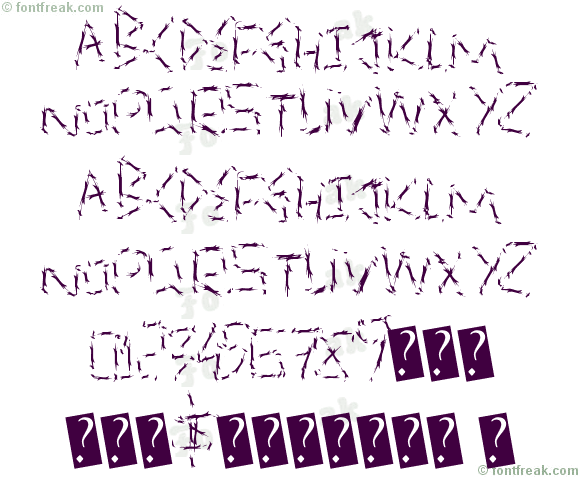
QuickSlash
QuickSlash by Xerographer Fonts is a distinctive display font that captures attention with its unique artistic flair. This font features a bold, fragmented design that resembles quick strokes or slashes, providing a dynamic and energetic vibe. The visual characteristics include an irregular stroke weight, which creates a sense of movement and spontaneity. The spacing between the letters is thoughtfully designed to enhance legibility while maintaining a striking appearance. The decorative elements, including the sharp edges and varying line thickness, contribute to its edgy aesthetic, making it an ideal choice for creative projects.
This versatile font is perfect for a variety of use cases. It shines in applications such as movie posters, where its dramatic flair can capture the essence of an action or thriller film. Additionally, QuickSlash works beautifully for music event flyers, giving them an energetic feel that resonates with the audience. Graphic designers can also utilize this font in branding projects for streetwear or urban fashion lines, where a bold statement is essential. Wedding invitations can benefit from its unique style by adding a modern twist to traditional designs, while restaurant menus can leverage it to create an inviting yet contemporary atmosphere.
What sets the QuickSlash font apart is its ability to balance artistic expression with practicality. Its unique aesthetics lend a fresh perspective to various design applications, ensuring that projects not only stand out but also engage the audience effectively. Don't miss the opportunity to elevate your designs with a QuickSlash font free download and experience its impact firsthand.